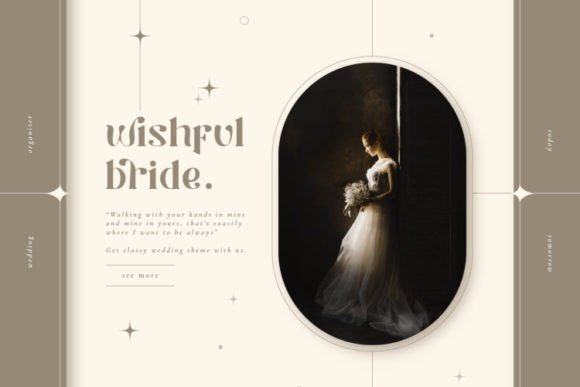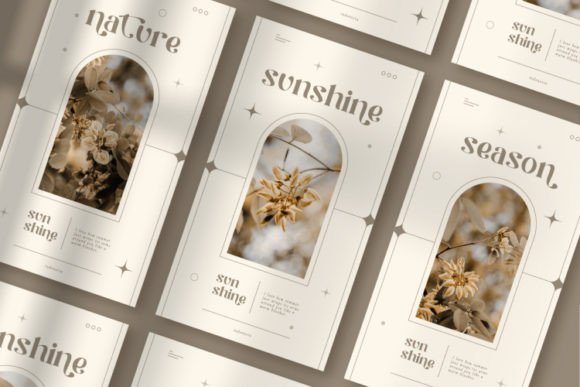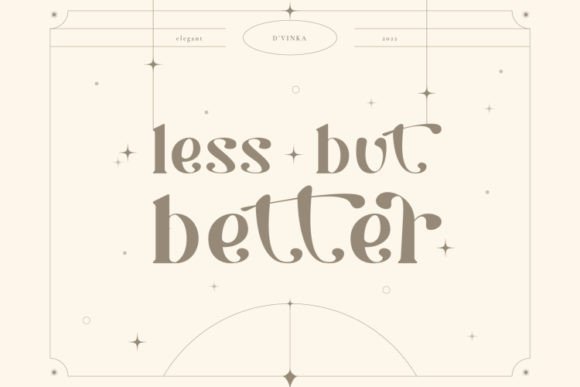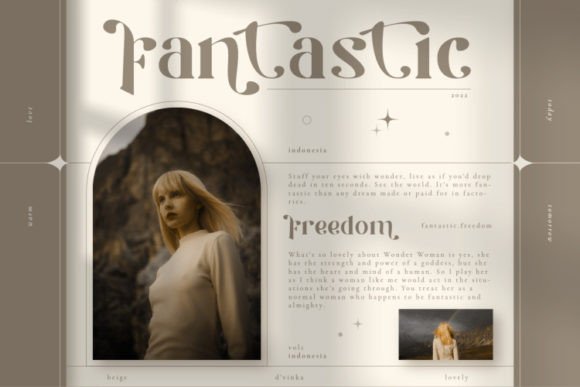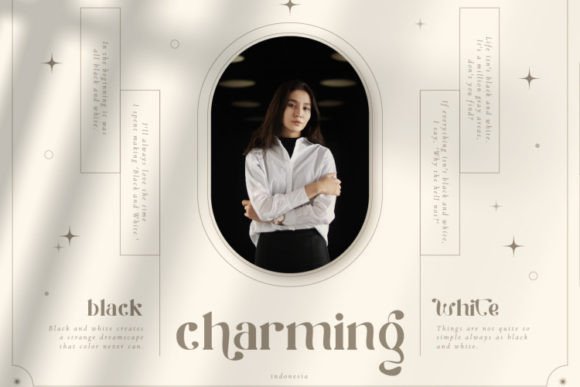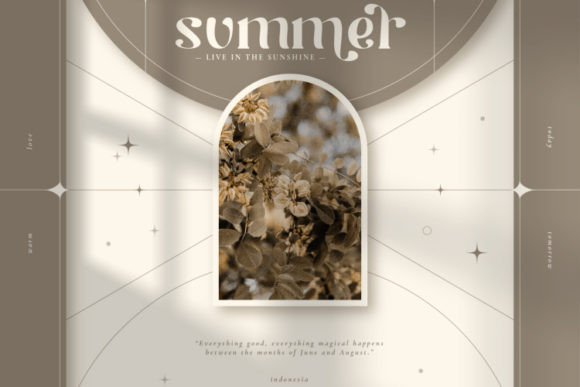
D’vinka Font: Elevate Your Designs with a Modern and Cool Display Font
In the world of typography, fonts play a crucial role in conveying the tone and personality of a design. For designers and crafters, finding the right font can be a daunting task. However, if you’re looking for a modern and cool display font that can elevate any creation, look no further than D’vinka Font. In this article, we’ll explore the features and benefits of D’vinka Font, and why it’s an incredible asset to your font library.
What is D’vinka Font?
D’vinka Font is a modern and cool display font designed to make a statement. Its sleek and sophisticated design makes it perfect for a wide range of applications, from branding and advertising to packaging and digital media. Whether you’re creating a logo, headline, or title, D’vinka Font is sure to grab attention and leave a lasting impression.
Key Features of D’vinka Font
- Modern and Cool Design: D’vinka Font boasts a modern and cool design that’s perfect for designers and crafters looking for a font that stands out from the crowd.
- Versatile: This font is incredibly versatile and can be used for a wide range of applications, from digital media to print materials.
- Elegant and Sophisticated: D’vinka Font exudes elegance and sophistication, making it perfect for luxury brands and high-end designs.
- Easy to Read: Despite its bold and modern design, D’vinka Font is easy to read, even at smaller sizes.
Benefits of Using D’vinka Font
So, why should you consider adding D’vinka Font to your font library? Here are just a few benefits of using this incredible font:
- Elevate Your Designs: D’vinka Font has the potential to elevate any creation, adding a touch of sophistication and elegance to your designs.
- Stand Out from the Crowd: With its modern and cool design, D’vinka Font is sure to make your designs stand out from the crowd.
- Save Time: With D’vinka Font, you can create stunning designs in no time. Its ease of use and versatility make it a great time-saving tool.
- Perfect for Branding: D’vinka Font is perfect for branding and advertising, helping you to create a strong and memorable visual identity.
Who Can Benefit from D’vinka Font?
D’vinka Font is perfect for a wide range of designers and crafters, including:
- Graphic Designers: Graphic designers can use D’vinka Font to create stunning logos, brochures, and other marketing materials.
- Digital Designers: Digital designers can use D’vinka Font to create engaging and interactive digital media, such as website headers and social media graphics.
- Crafters: Crafters can use D’vinka Font to create beautiful and unique handmade projects, such as signs, cards, and scrapbook pages.
- Branding Agencies: Branding agencies can use D’vinka Font to create strong and memorable visual identities for their clients.
In conclusion, D’vinka Font is a modern and cool display font that’s perfect for designers and crafters looking to elevate their designs. Its sleek and sophisticated design, versatility, and ease of use make it an incredible asset to your font library. Whether you’re creating a logo, headline, or title, D’vinka Font is sure to grab attention and leave a lasting impression. So why wait? Add D’vinka Font to your font library today and take your designs to the next level!
- Experiment with Different Sizes and Colors: Experiment with different sizes and colors to find the perfect combination for your design.
- Pair with Other Fonts: Pair D’vinka Font with other fonts to create a unique and visually appealing design.